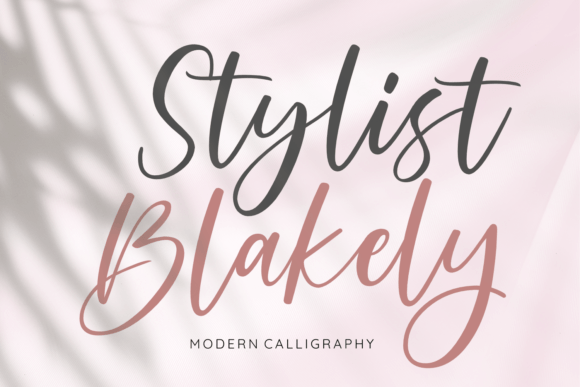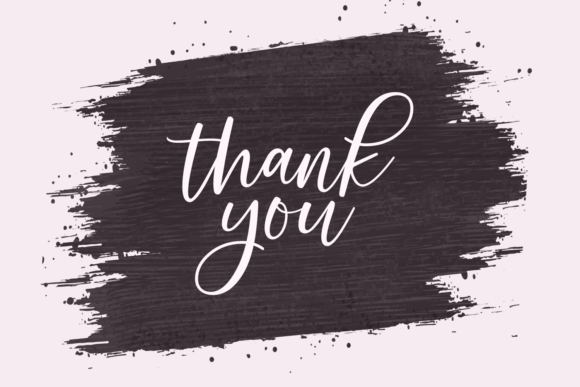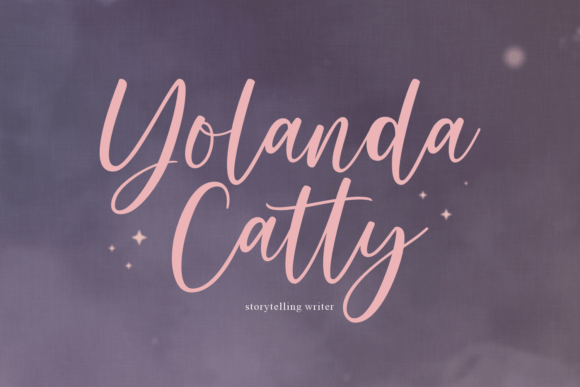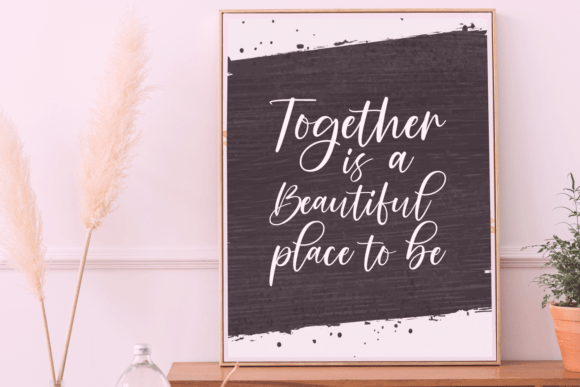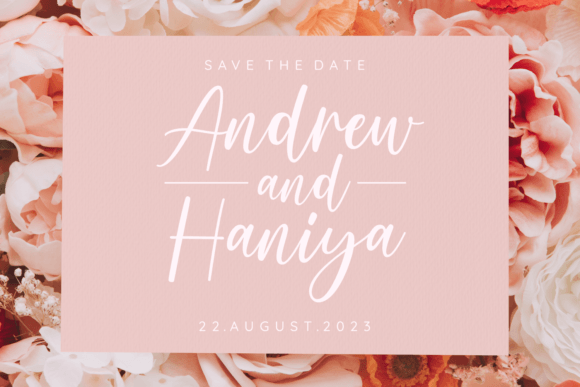
About Stylist Blakely Font
“Stylist Blakely” is a lovely modern calligraphic font designed to bring your creative ideas to life with its charming and elegant style. This versatile typeface is perfect for a variety of applications, including wedding designs, product design, quotes, logo creation, crafts, and more.
The modern calligraphic style of “Stylist Blakely” adds a touch of sophistication to your designs. Its graceful strokes and stylish letterforms make it particularly well-suited for wedding-related projects, where a romantic and elegant aesthetic is desired. Whether used in invitations, save-the-date cards, or wedding signage, this font adds a charming and memorable quality.
In product design and branding, “Stylist Blakely” becomes a distinctive element that communicates style and creativity. Its versatility allows it to adapt to different design contexts, making it suitable for a range of industries.
Whether you’re working on quotes, logos, or various creative endeavors, “Stylist Blakely” is a font that adds a touch of charm and sophistication. Let it be the elegant typeface that elevates your designs and brings a sense of style to your creative projects.